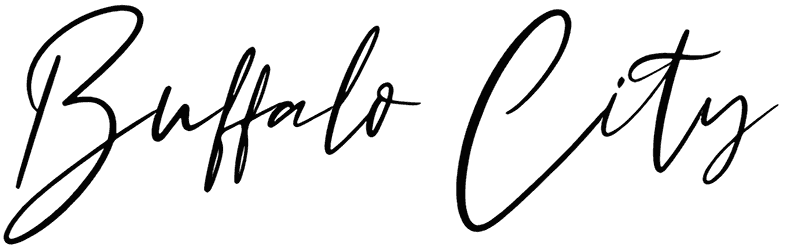
Buffalo City Font
A journey of thousands of kilometers must start with one step and your first step toward becoming a reputable graphic designer might have begun with choosing a magical script font such as Buffalo City that comes with cursive style and sophisticated flow.
If you want to add a personalized touch to your graphic content including business cards, logos, billboards, social media posts, or editorial projects, this signature font can help you. Also, it carries a sense of dynamic and delicacy.